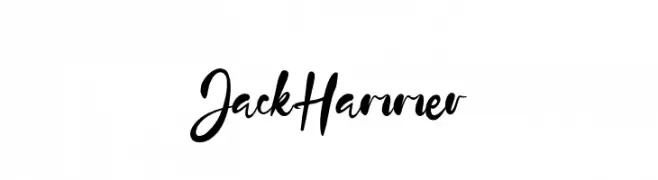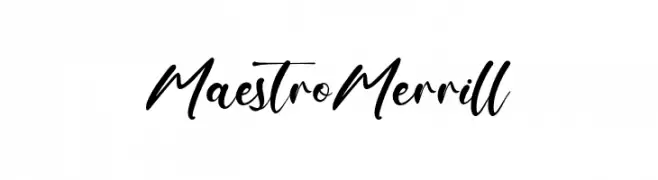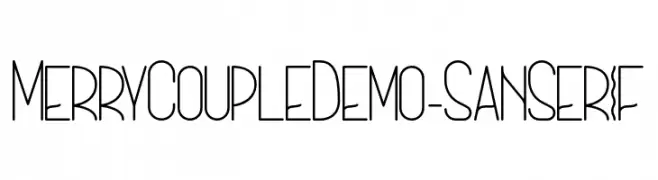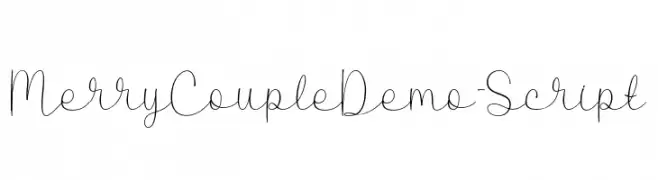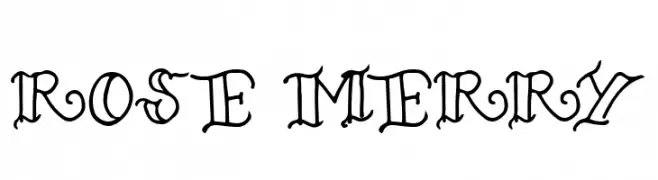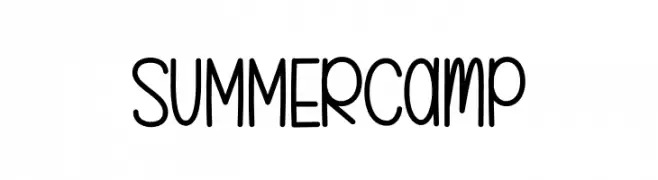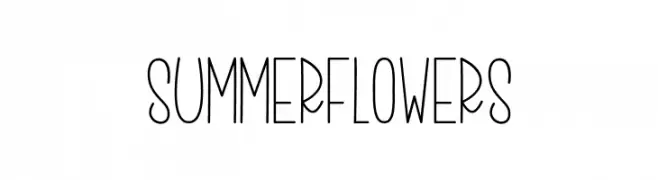
A clean, minimalist font with tall, narrow letterforms and consistent stroke thickness.
A delicate and flowing script font with elegant, interconnected strokes.
A modern, geometric sans-serif font with a sleek and elegant design.
A playful, rounded handwritten font with a casual and friendly vibe.
A bold, flowing script font with dynamic curves and artistic flair.
A sophisticated script font with smooth, flowing lines and graceful curves.
A cursive, handwritten font with elegant, flowing strokes and dynamic contrast.
A whimsical and decorative font with ornate, curvy characters.
A playful, tall, and narrow font with consistent stroke width.
A bold, expressive script font with a dynamic, handwritten style.